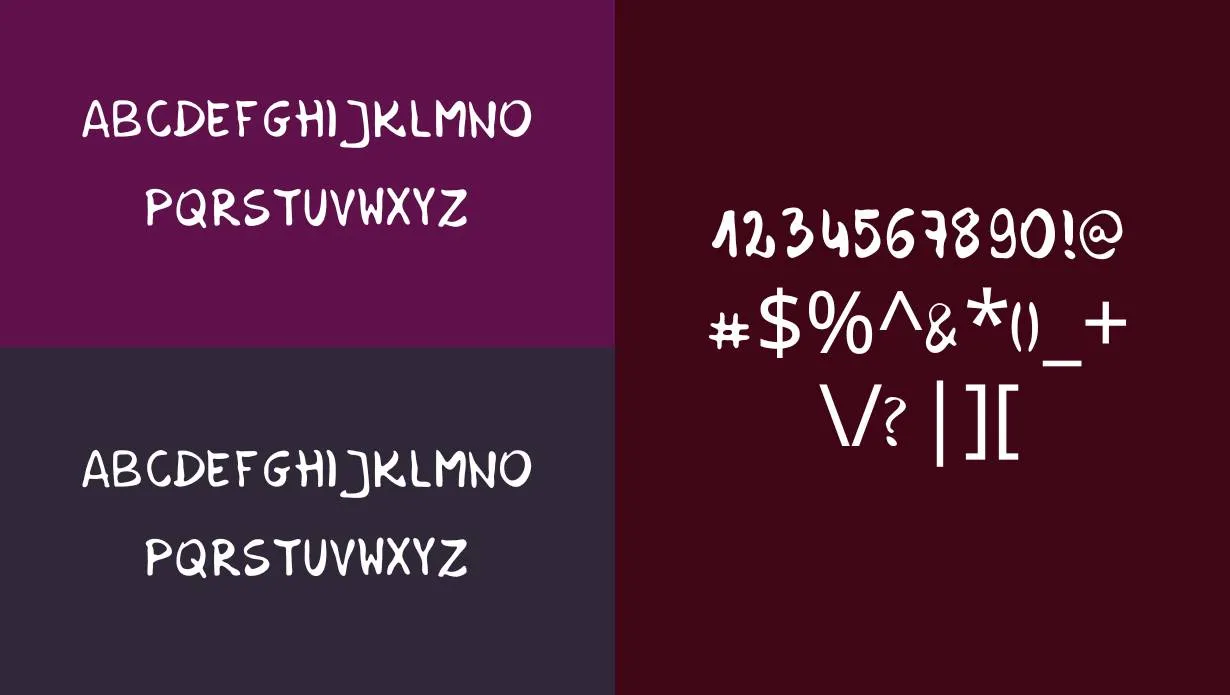
The Fonto font is a versatile and modern typeface that serves various design purposes. With its simple and clear appearance, it’s commonly employed in web design, presentations, or any project requiring straightforward and easily readable text.
Its clarity ensures that the content remains easily comprehensible and accessible in diverse contexts, making it a practical choice for a wide range of design applications.